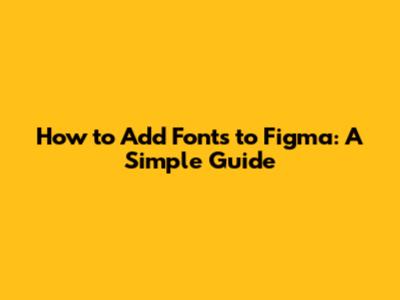
Hey guys! Ever wondered how to add those cool, unique fonts you found online to your Figma projects? Well, you're in the right place! Adding custom fonts to Figma can really level up your design game, making your projects stand out with personalized typography. It might seem a bit tricky at first, but trust me, it’s super easy once you get the hang of it. Let’s dive into the world of fonts and Figma, making your designs look awesome!
Understanding Fonts in Figma
Before we jump into the how-to, let's quickly understand how Figma handles fonts. Figma primarily uses two types of fonts: Google Fonts and Local Fonts. Google Fonts are directly integrated into Figma, meaning you have a vast library of fonts available right at your fingertips without needing to install anything extra. Local Fonts, on the other hand, are fonts that are installed on your computer. To use these in Figma, you need to ensure Figma has the necessary permissions and connections to access them. This distinction is crucial because the process for using each type differs slightly.
When you're working on a project, the fonts you choose play a massive role in conveying the right mood and message. Think about it: a playful, rounded font gives off a completely different vibe than a sharp, sans-serif one. By understanding the types of fonts Figma supports and how to manage them, you unlock a world of creative possibilities, making your designs not just functional, but also visually compelling. So, whether you're crafting a sleek website, a vibrant poster, or a user-friendly mobile app, the right fonts will help you communicate your vision effectively. Knowing this foundation, we can now proceed to the steps for adding those fantastic fonts into Figma!
Installing Fonts on Your Computer
First things first, to use a font in Figma that isn't a Google Font, it needs to be installed on your computer. This is a pretty straightforward process, but it varies a little depending on whether you're using Windows or macOS. For Windows users, simply right-click on the font file (usually a .ttf or .otf file) and select "Install". Windows will then install the font, making it available for all applications on your computer, including Figma. Easy peasy! On macOS, you can double-click the font file, which will open Font Book. In Font Book, click "Install Font" at the bottom, and macOS will take care of the rest.
Make sure that after installing the font, you restart Figma. This ensures that Figma recognizes the newly installed font. If Figma was open during the installation, it might not immediately detect the new font until it's restarted. This step is often overlooked but is crucial for the font to appear in Figma's font selection menu. Additionally, ensure that the font file you're installing is compatible with your operating system. Sometimes, font files can be corrupted or designed for a different OS, which can prevent them from installing correctly. By taking these precautions, you'll have a smoother experience getting your desired fonts into Figma and ready to use in your projects. This foundational step sets the stage for unleashing your creativity with unique typography.
Connecting Local Fonts to Figma
Now that your font is installed on your computer, the next step is to make sure Figma can actually see and use it. This is where the Figma Agent comes into play. The Figma Agent is a small application that runs in the background on your computer and acts as a bridge between Figma (the web application) and your local fonts. To get started, you'll need to download and install the Figma Agent. You can find the download link in Figma itself by going to your profile menu and selecting "Install Font Helper". Follow the instructions to install it – it’s a quick and painless process.
Once the Figma Agent is installed and running, it will automatically detect the fonts installed on your computer and make them available in Figma. Keep the Figma Agent running in the background whenever you're using Figma to ensure continuous access to your local fonts. If you encounter any issues, such as Figma not recognizing your fonts, make sure the Figma Agent is running and that both Figma and the agent are up to date. Restarting both Figma and the agent can also resolve many common issues. Additionally, check your operating system's permissions to ensure that the Figma Agent has the necessary access to your fonts folder. By properly setting up and maintaining the Figma Agent, you'll have seamless access to your local fonts within Figma, enhancing your design workflow and creative possibilities.
Using Fonts in Figma
Alright, you've installed your font, connected it to Figma, and now it's time for the fun part: using it in your designs! Open up your Figma project and select the text layer you want to style. In the text panel on the right-hand side, you'll see a font selection menu. Click on the dropdown, and you should see your newly installed font listed among the available options. Simply select it, and voilà! Your text is now styled with your custom font.
Experiment with different font sizes, weights, and styles to achieve the perfect look for your design. Figma offers a wide range of text formatting options, allowing you to fine-tune the appearance of your text to match your creative vision. Don't be afraid to try out different fonts and combinations to see what works best for your project. Remember, the right font can make all the difference in conveying the right message and mood. Also, keep in mind the legibility of your chosen font, especially for body text. While a fancy font might look great for headlines, it might not be the best choice for large blocks of text. By carefully selecting and styling your fonts, you can create visually appealing and effective designs that resonate with your audience. So go ahead, unleash your creativity and let your typography shine!
Troubleshooting Common Issues
Sometimes, things don’t go as smoothly as we’d like. If you're having trouble getting your fonts to show up in Figma, don't panic! Here are a few common issues and how to fix them. First, make sure the Figma Agent is running. This is the most common cause of fonts not appearing. Second, try restarting Figma. Sometimes, a simple restart can do the trick. Third, ensure that the font is properly installed on your computer. Double-check that the font file is not corrupted and that it's compatible with your operating system.